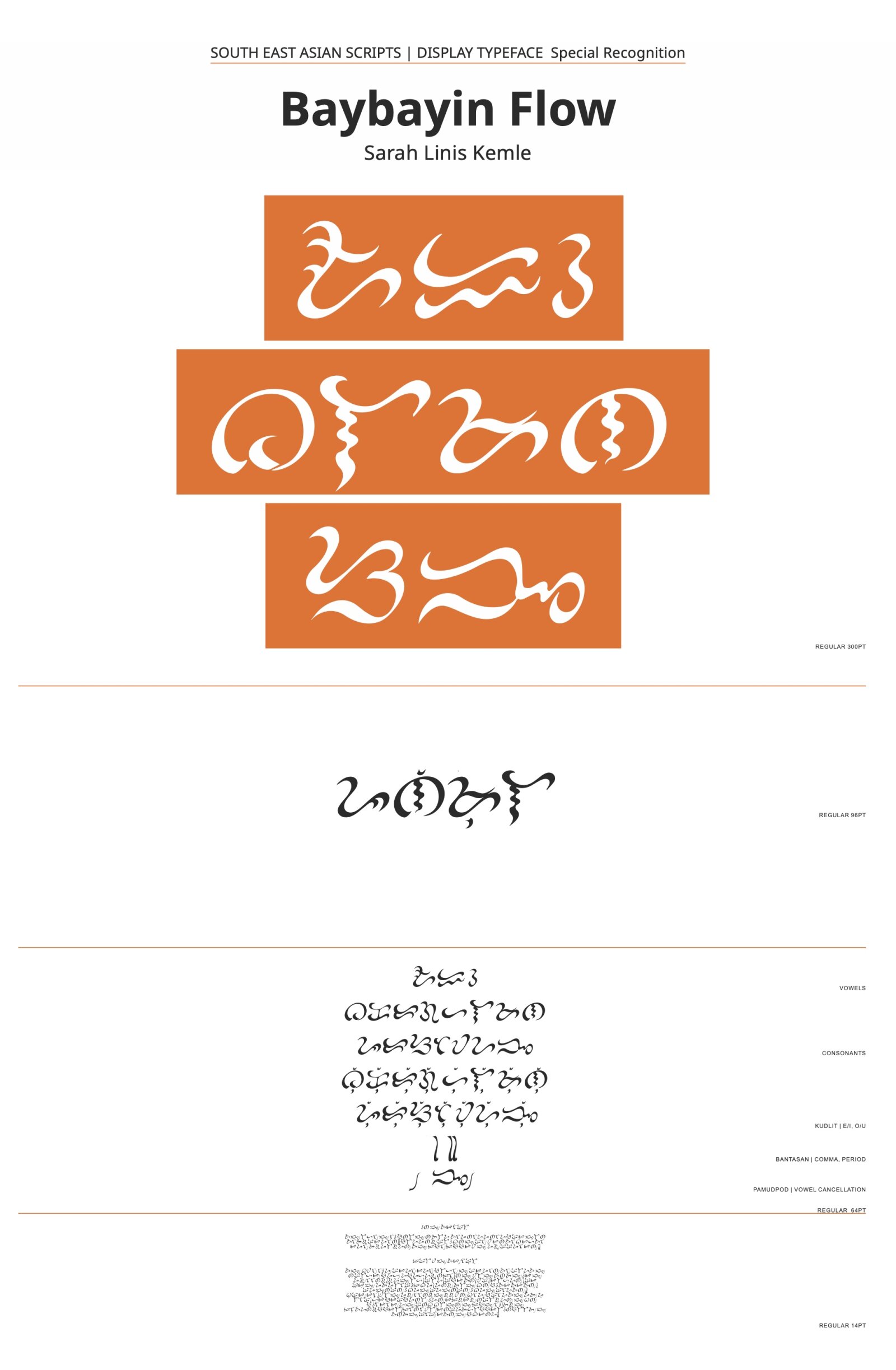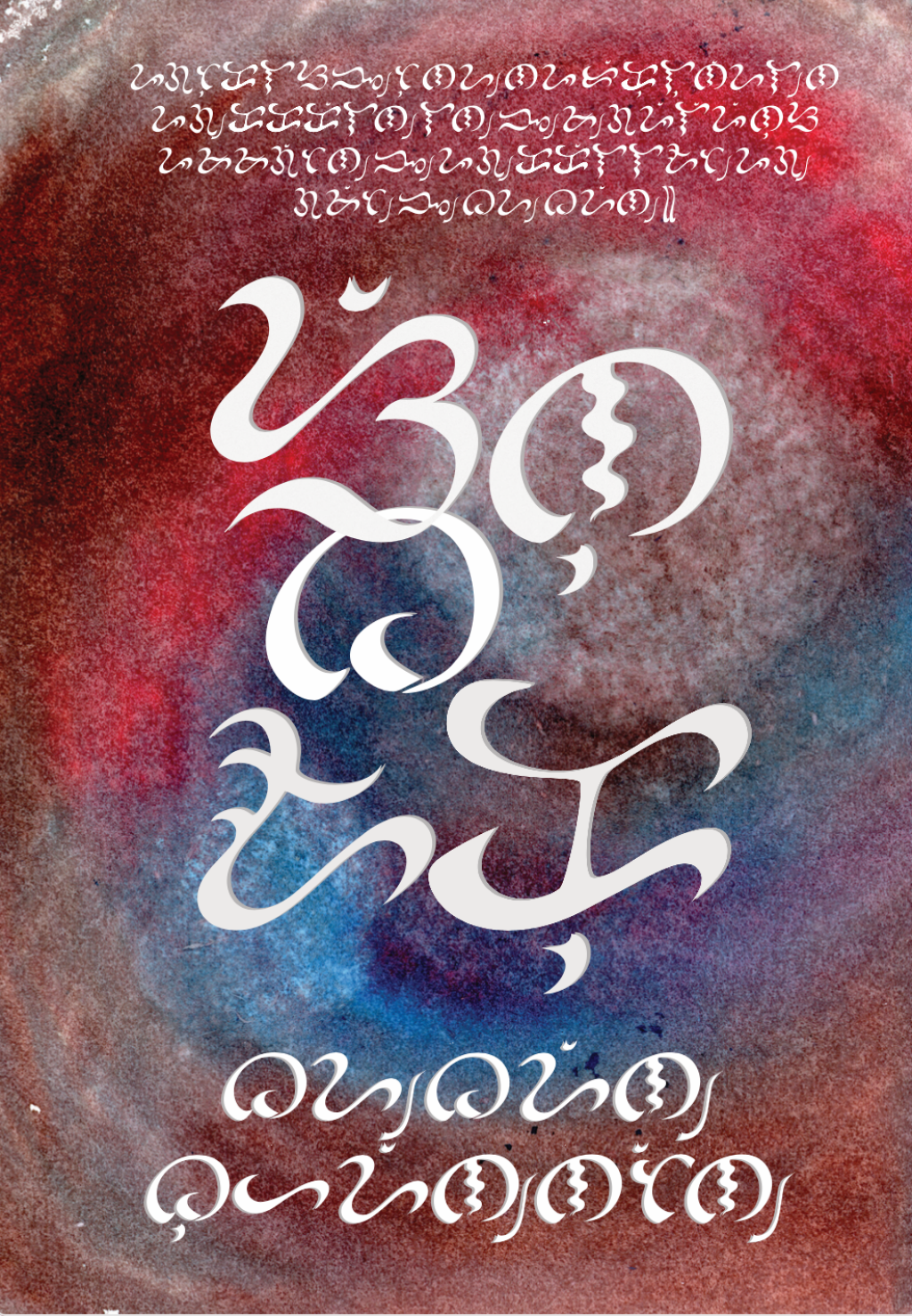
Baybayin Flow
by Sarah Kemle
Southeast Asian Scripts
Baybayin, the historical writing system of the Philippine people is experiencing a strong revival within the local design community. Although it was not possible to on-board it as a regular part of the Southeast Asian Script Group, GRANSHAN was keen on acknowledging Sarah Kemle’s dissertation and practical work on the Baybayin script resulting in her type design study ’Baybayin Flow‘. Therefore it was deemed worthy of a special recognition by the jury to raise awareness and appreciation of the script.
The typeface has a natural look and feel due to the smooth, curved lines that give it a sense of fluidity. This is a result of the calligraphic strokes used during the development of the typeface. It can be read from left to right, but because of its organic form and its historical roots in writing, it can also be written from bottom to top. The characters can be read in a 90-degree (bottom-top) to a flat 0-degree (left-right) position. It was created from a nearly extinct pre-colonial script without typographic standards. Each character was carefully observed from a surviving book and strokes were created through experimentation to retain its original characteristics while being aesthetically pleasing. Latin script can be used to aid with translation. Because due to its rarity, it is unlikely that many individuals can read it. The characters can also be used decoratively when arranged in a repeating pattern because of their organic form.